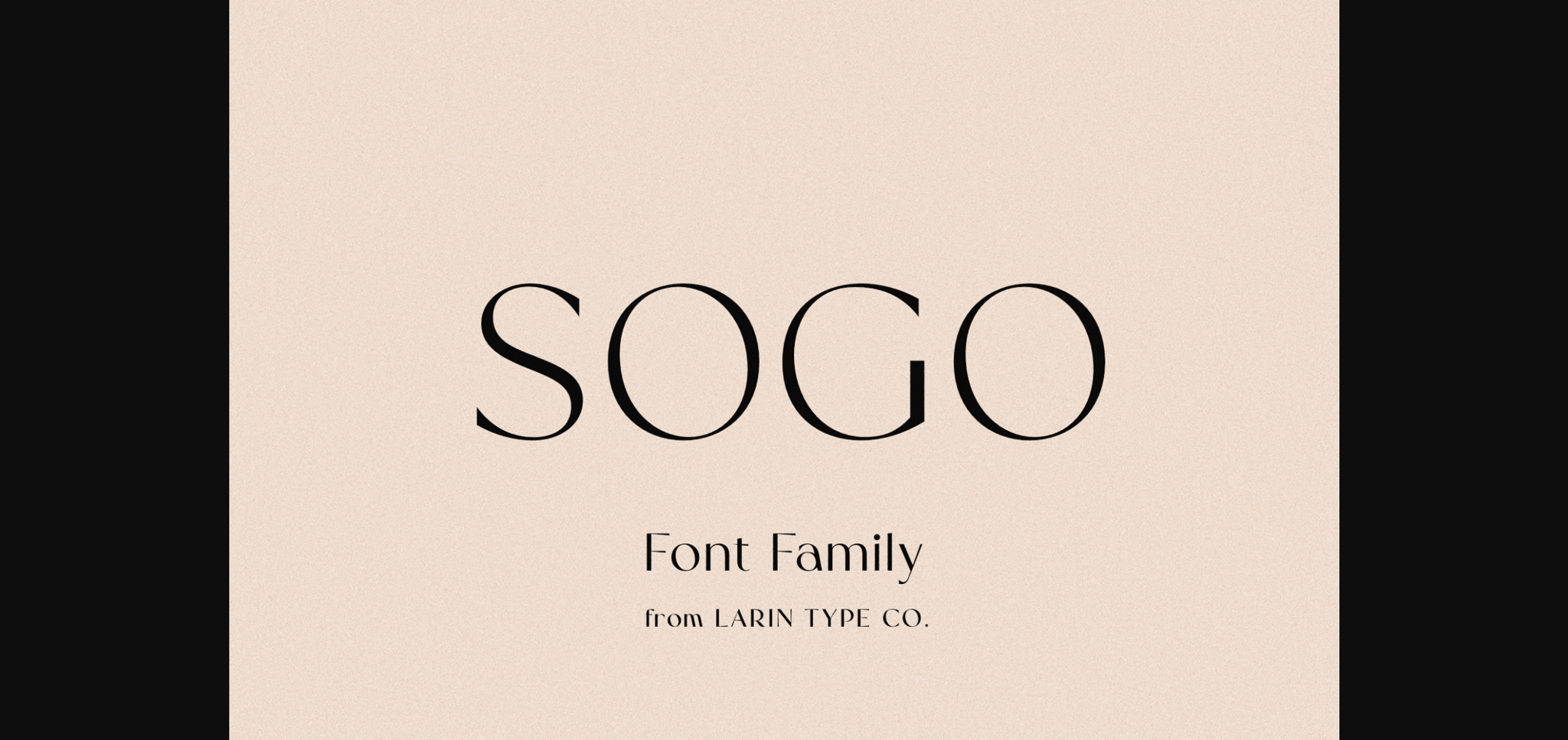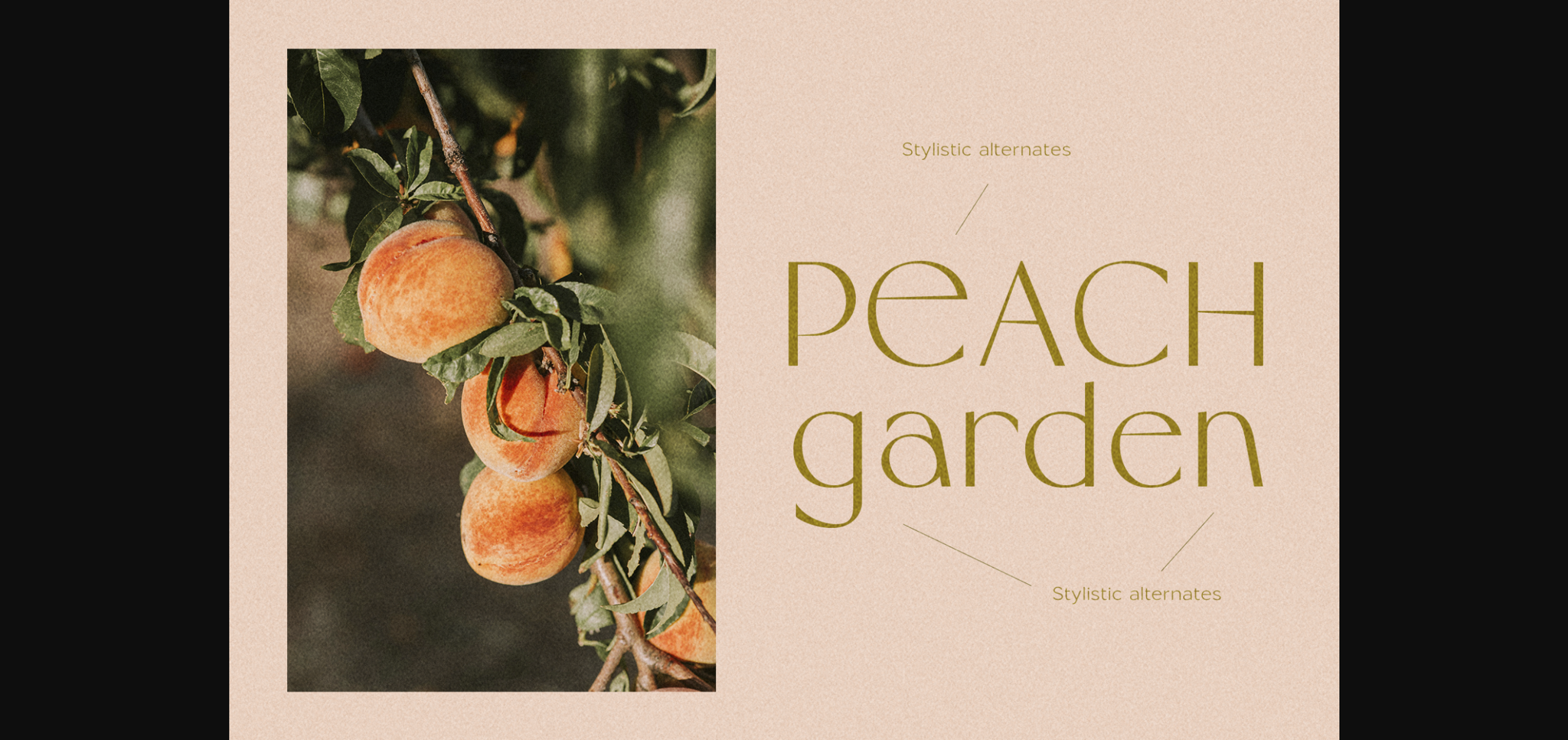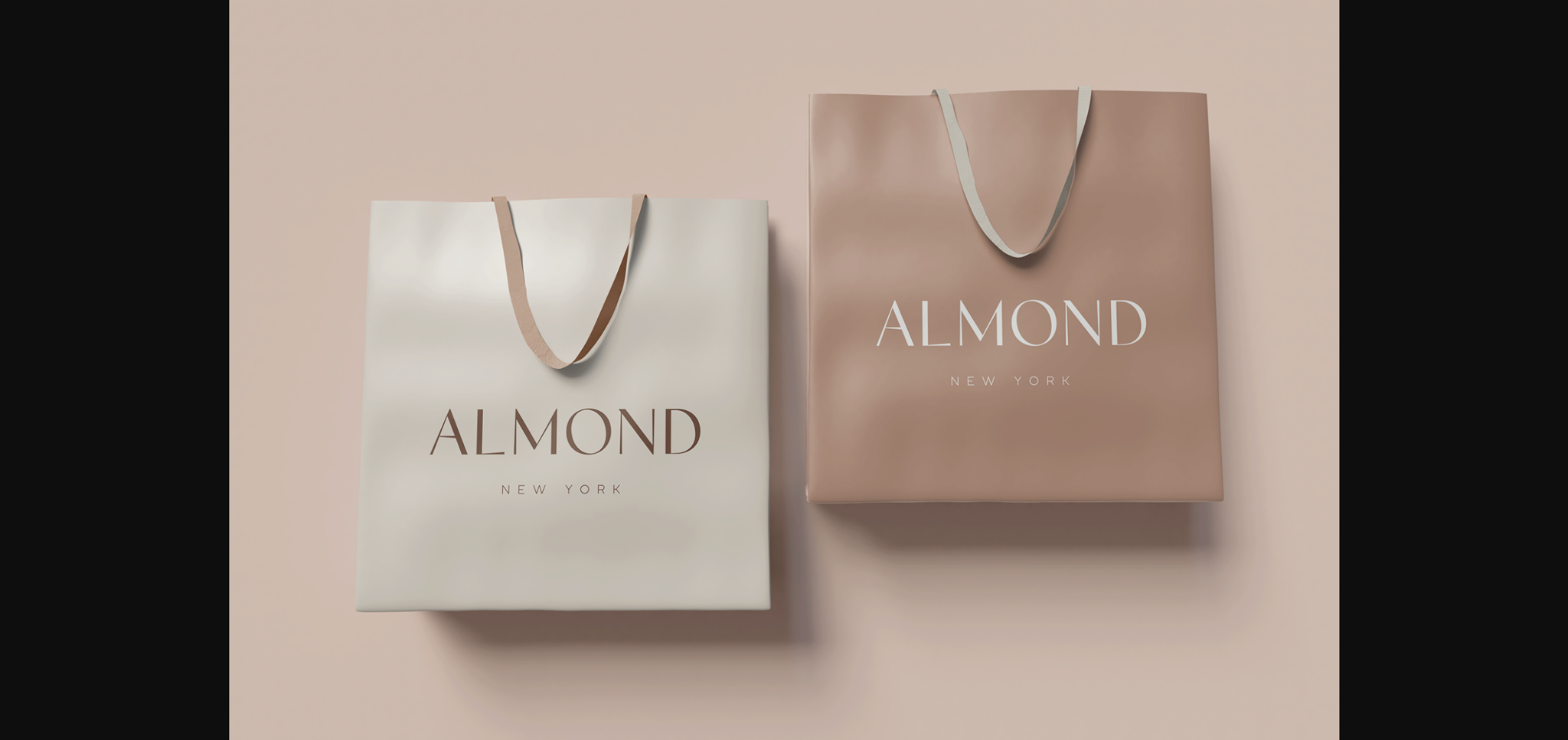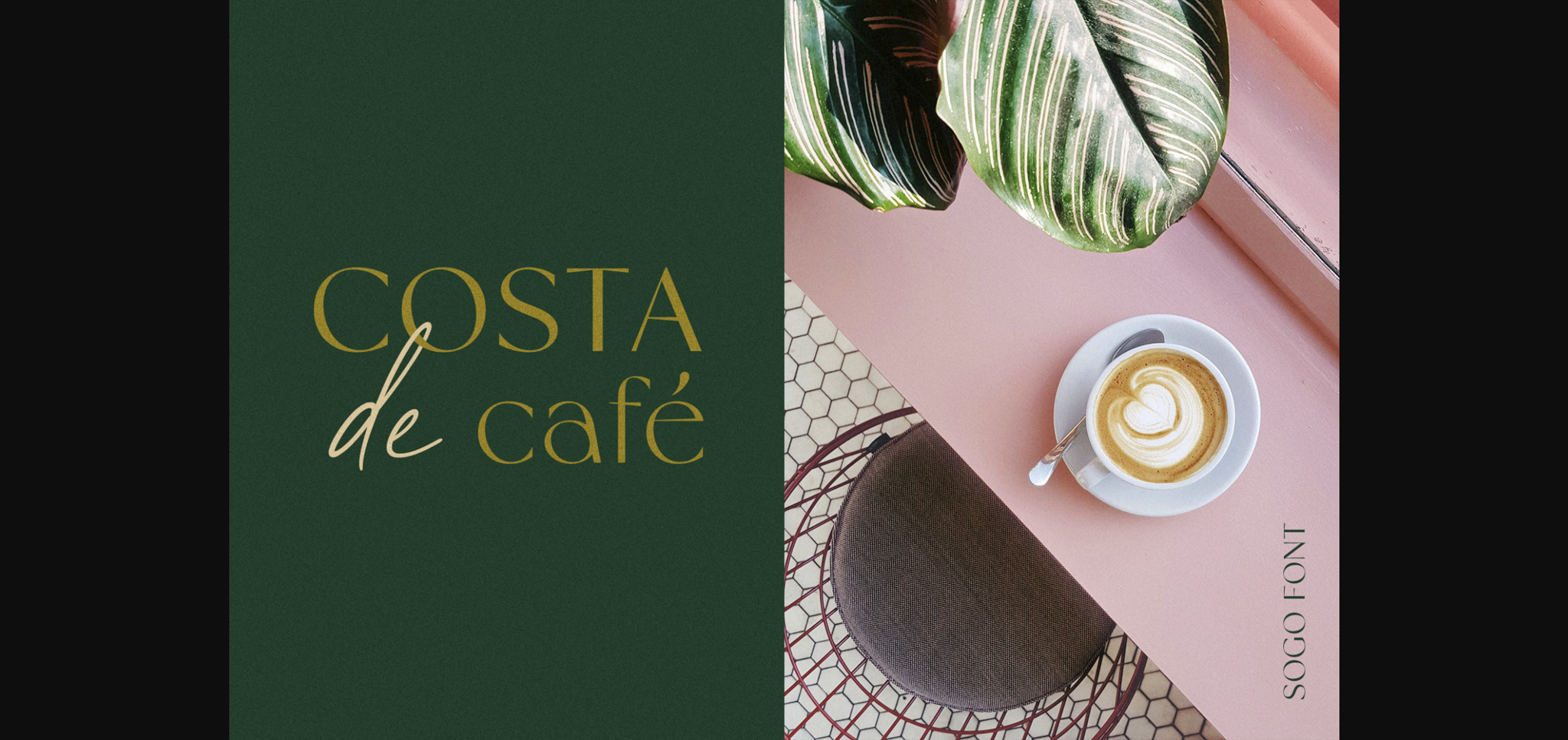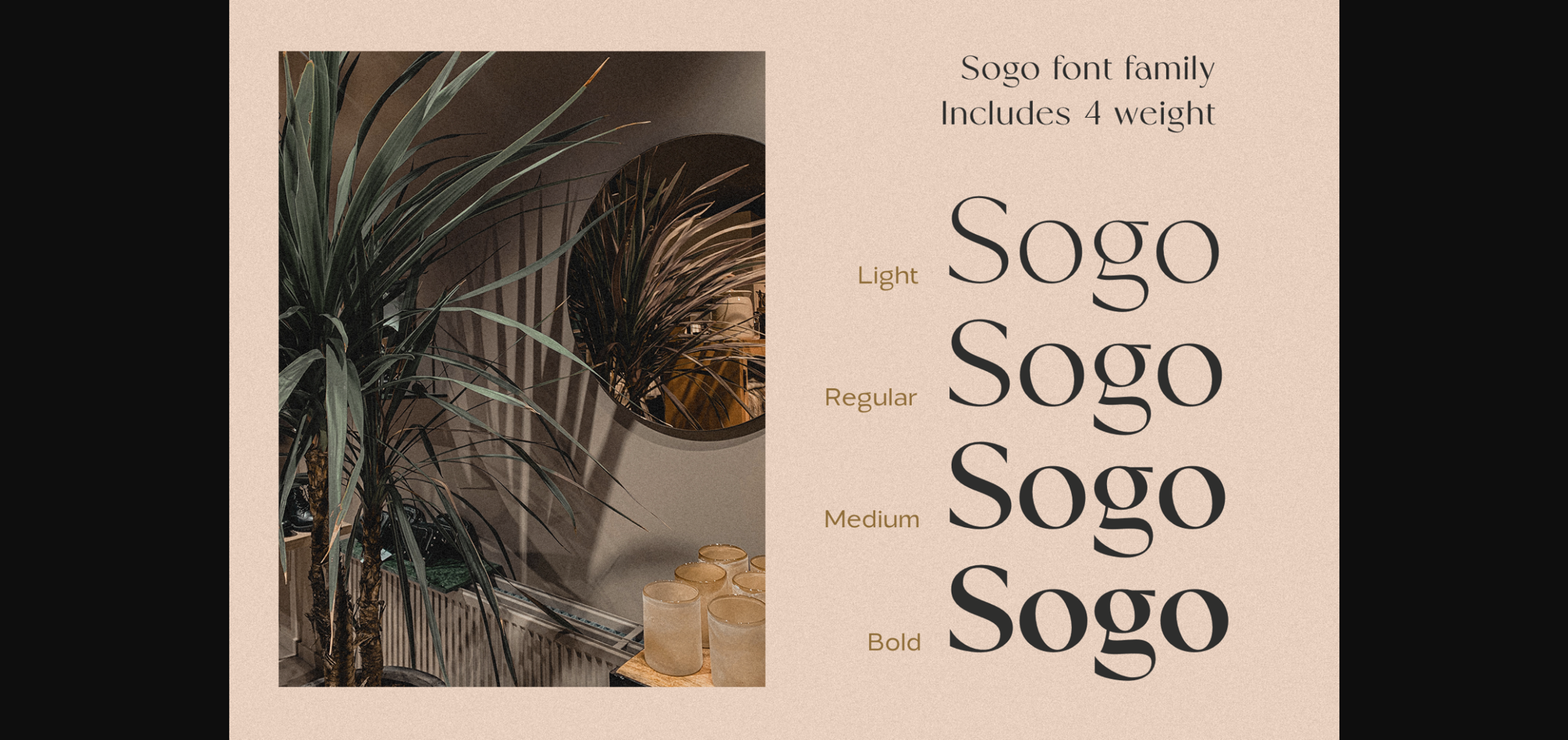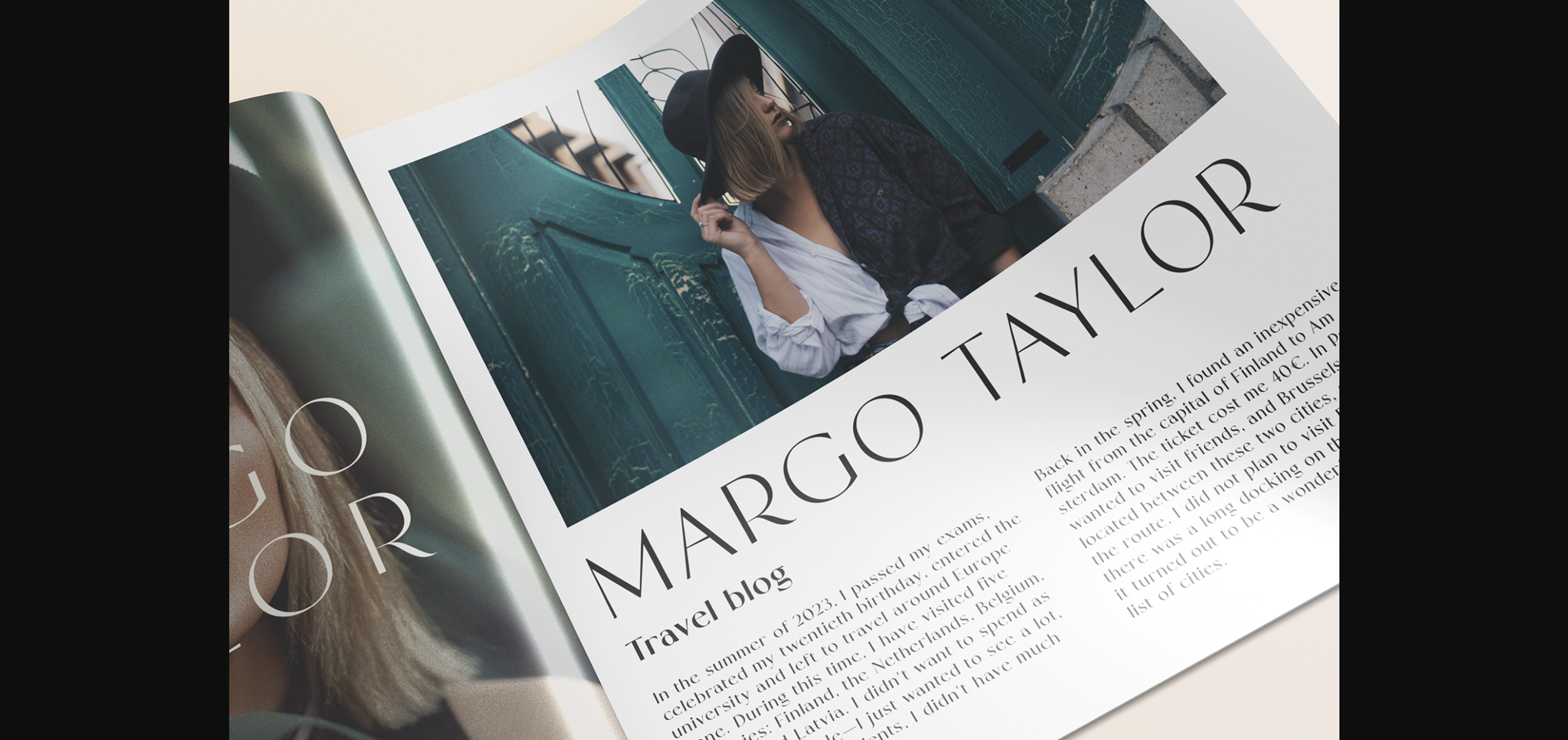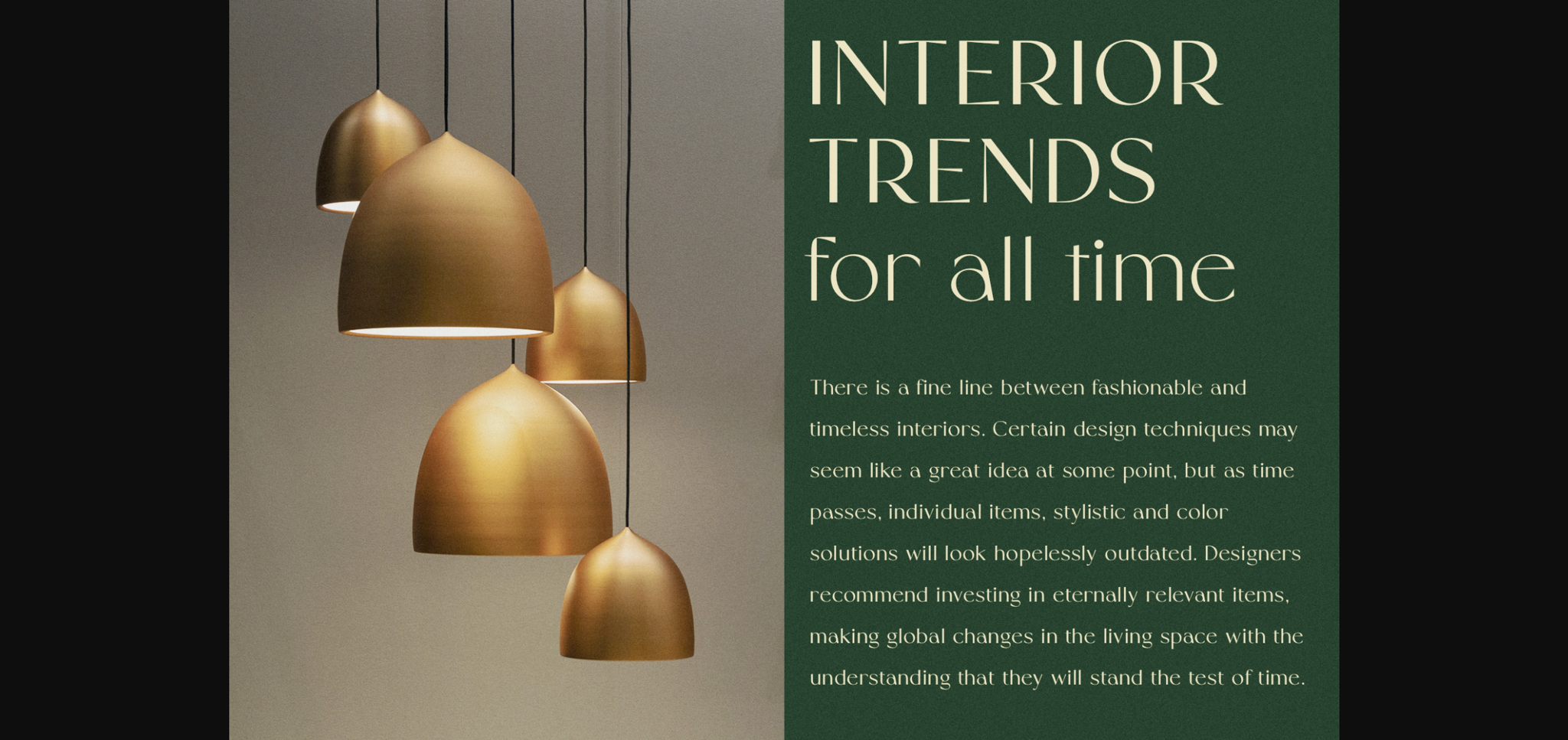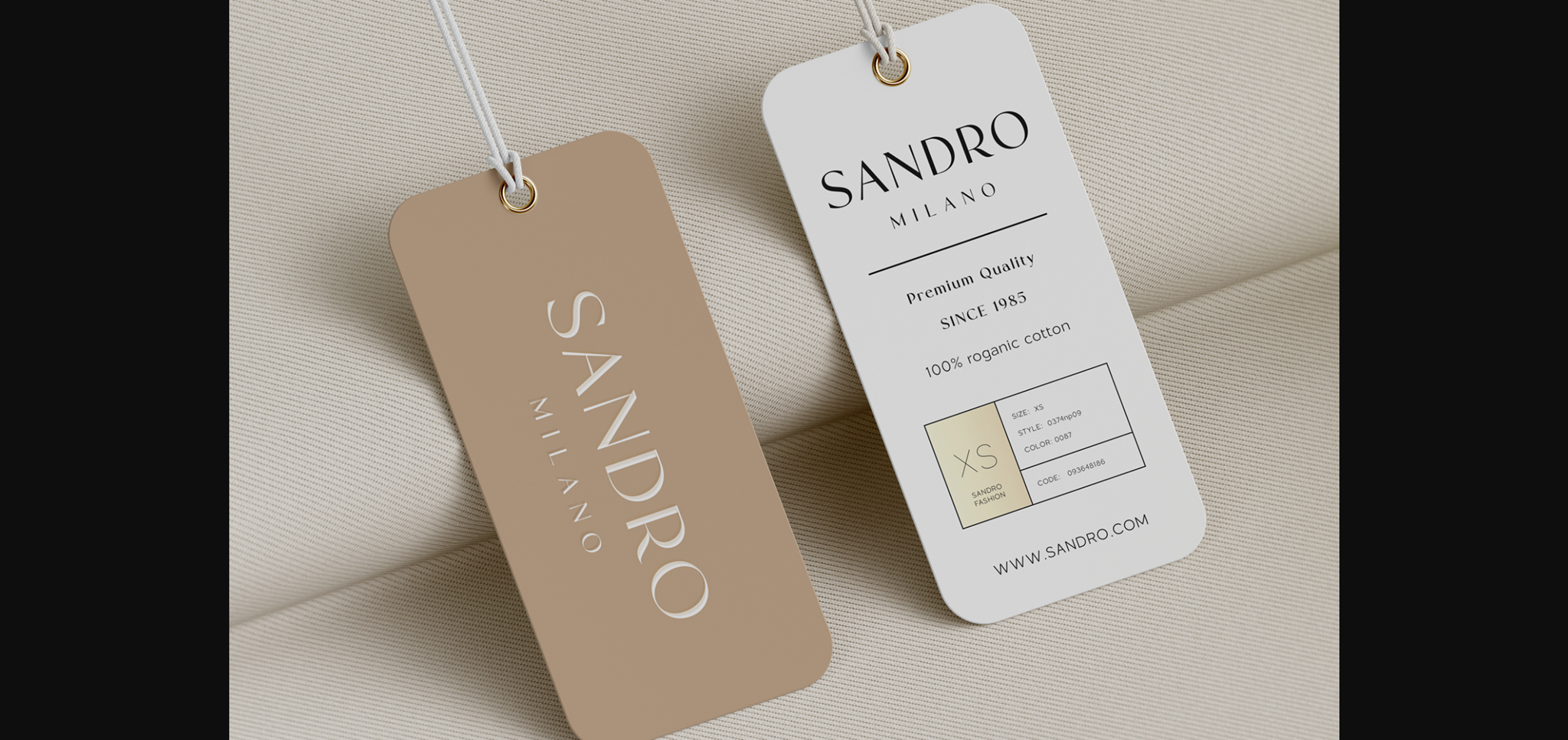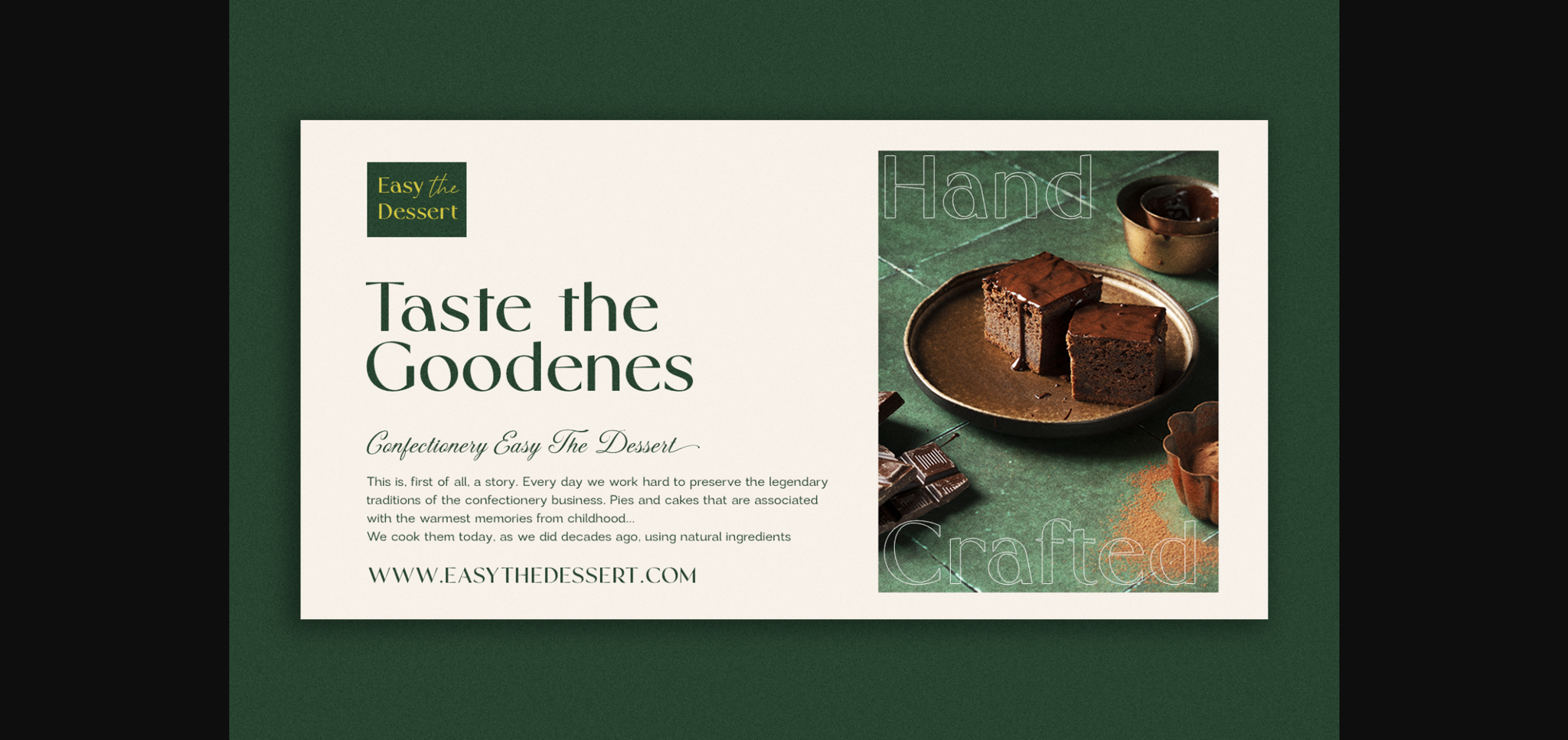
HomeSans Serif FontsSogo Font Sans Serif Fonts Sogo Font FacebookXPinterestWhatsApp 1 of 11 ... Sogo Font Poster 2... Sogo Font Poster 3... Sogo Font Poster 4... Sogo Font Poster 5... Sogo Font Poster 6... Sogo Font Poster 7... Sogo Font Poster 8... Sogo Font Poster 9... Sogo Font Poster 10... Sogo Font Poster 11... About Sogo Font Sogo is an elegant sans serif font, that features a very delicate and classy look. Not too thin and not too thick, balanced and varied, Sogo was designed to enhance the beauty of your projects. DOWNLOAD NOW People also explored Antafeda Font Butterflay Wolesbro Font SnakeFangs Font Summer Days Font Christmas Wish Font Aleanderica Font Golden Motion Font Delightious Font 337 0 TagsSogoSogo Font Previous articleSundek Shothic FontNext articleHello Family Font LEAVE A REPLY Cancel reply Comment: Please enter your comment! Name:* Please enter your name here Email:* You have entered an incorrect email address! Please enter your email address here Website: Save my name, email, and website in this browser for the next time I comment. Personal Use Free Roustel Personal Use Free Read more about this font Special Day Personal Use Free Read more about this font Haris Wood Personal Use Free Read more about this font Velasco Personal Use Free Read more about this font BLOG 5 Fonts That Will Dominate Design Trends in 2026 5 Fonts for 2026 That Will Dominate Design Trends Typography plays a critical role in visual communication, and as we look ahead to 2026, it’s... Fonts That Capture the Spirit of New York City Elegant Wedding Invitation Fonts – Handwritten & Script Fonts How to Cut Any Font on Cricut: Convert a Font to SVG (Free)